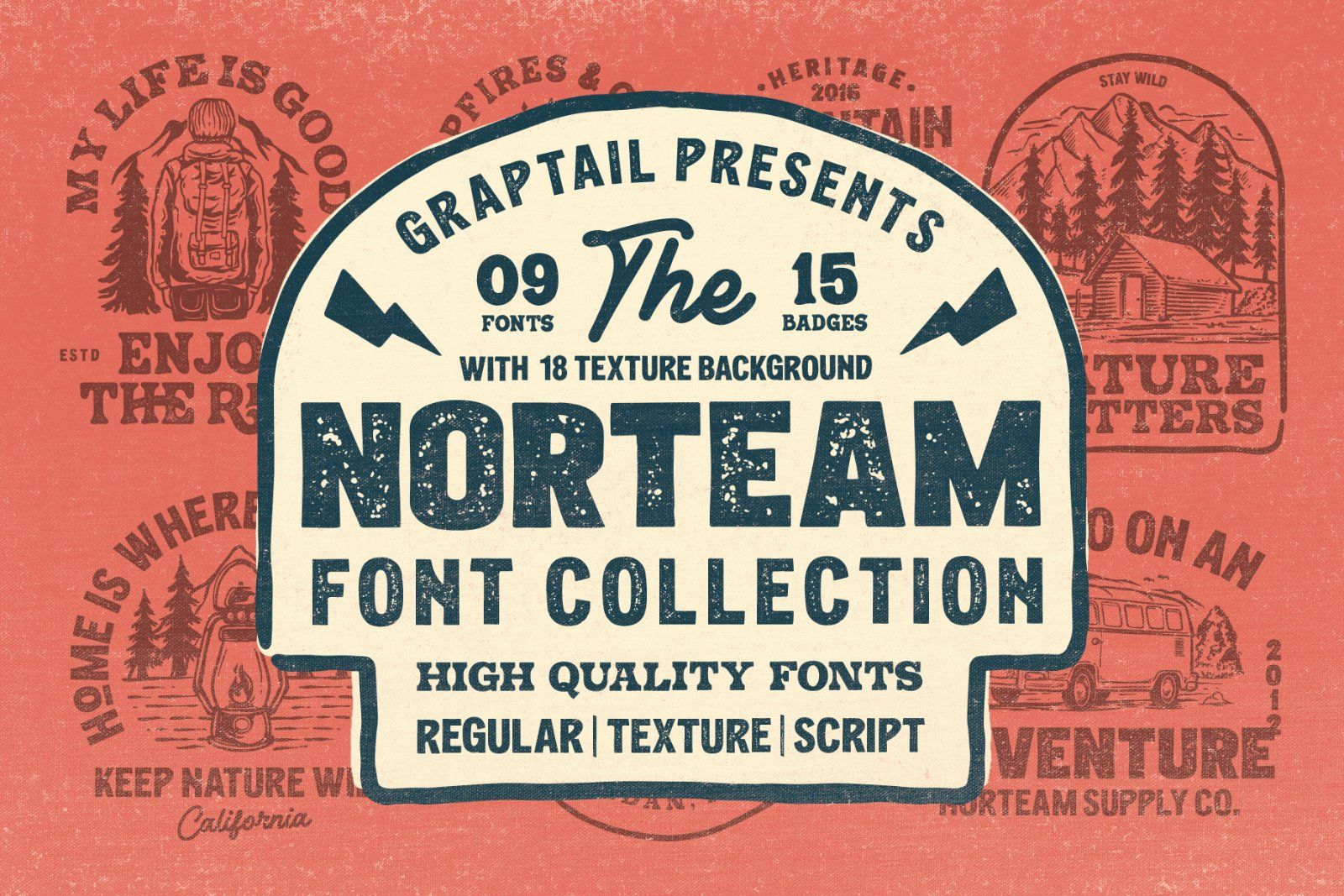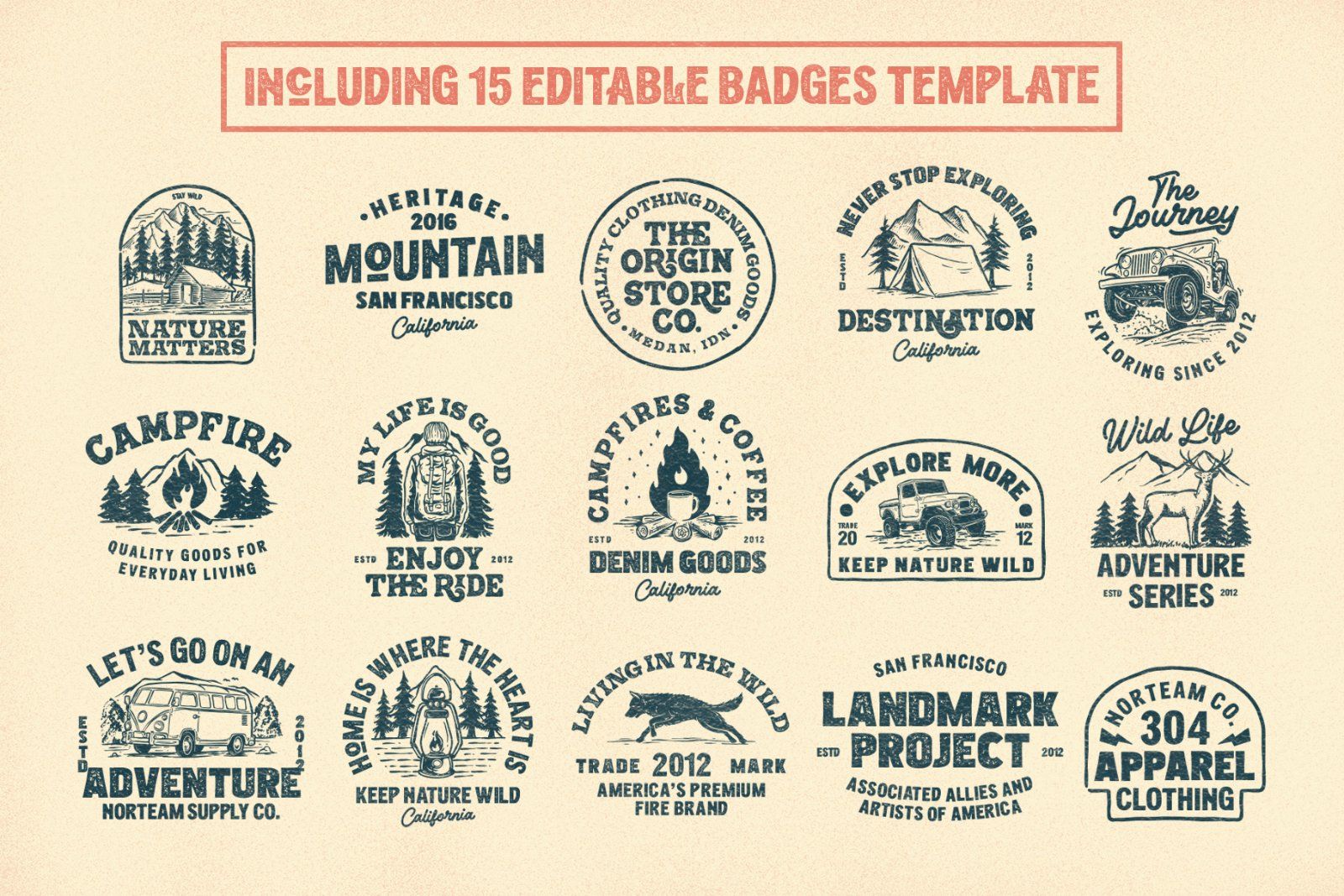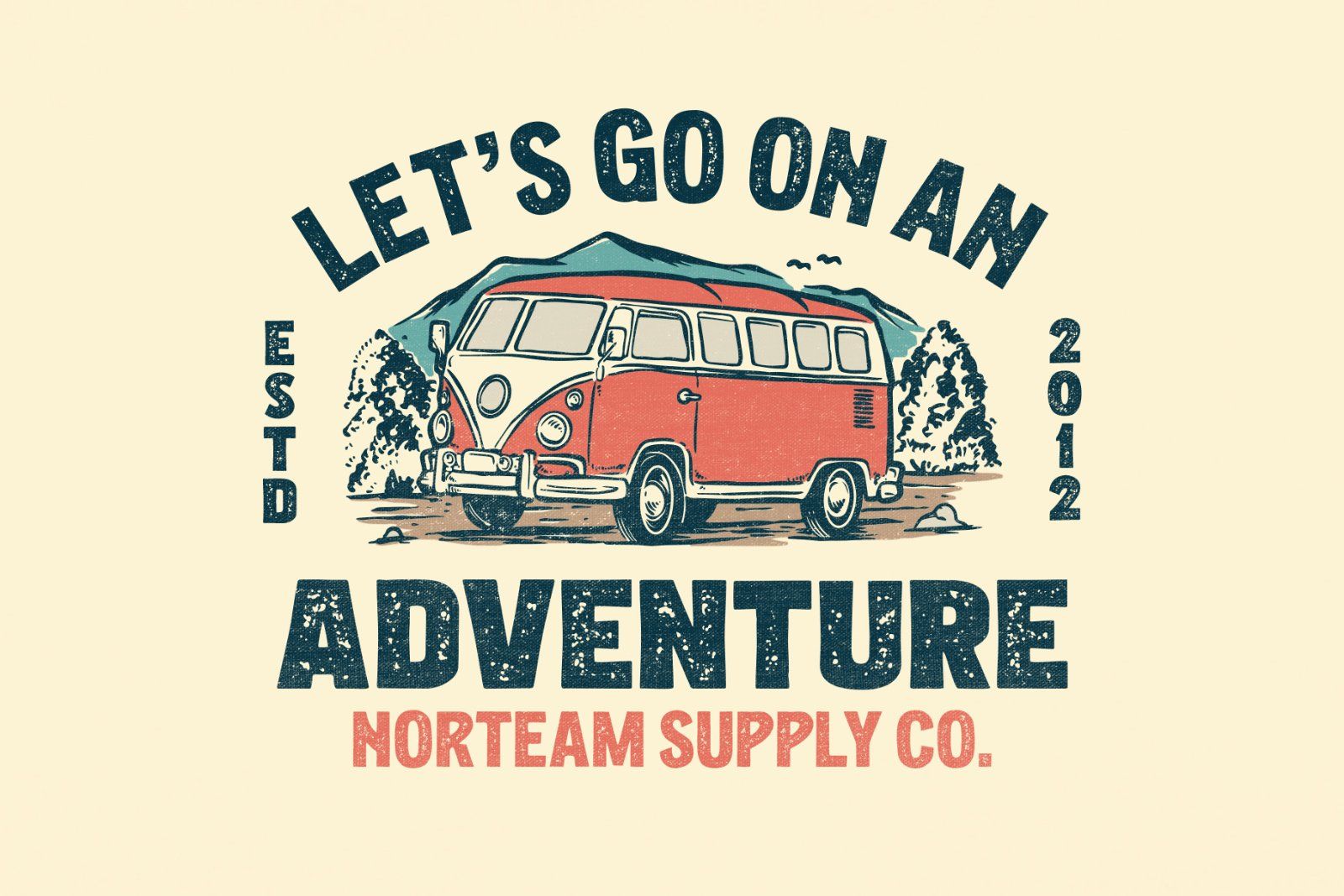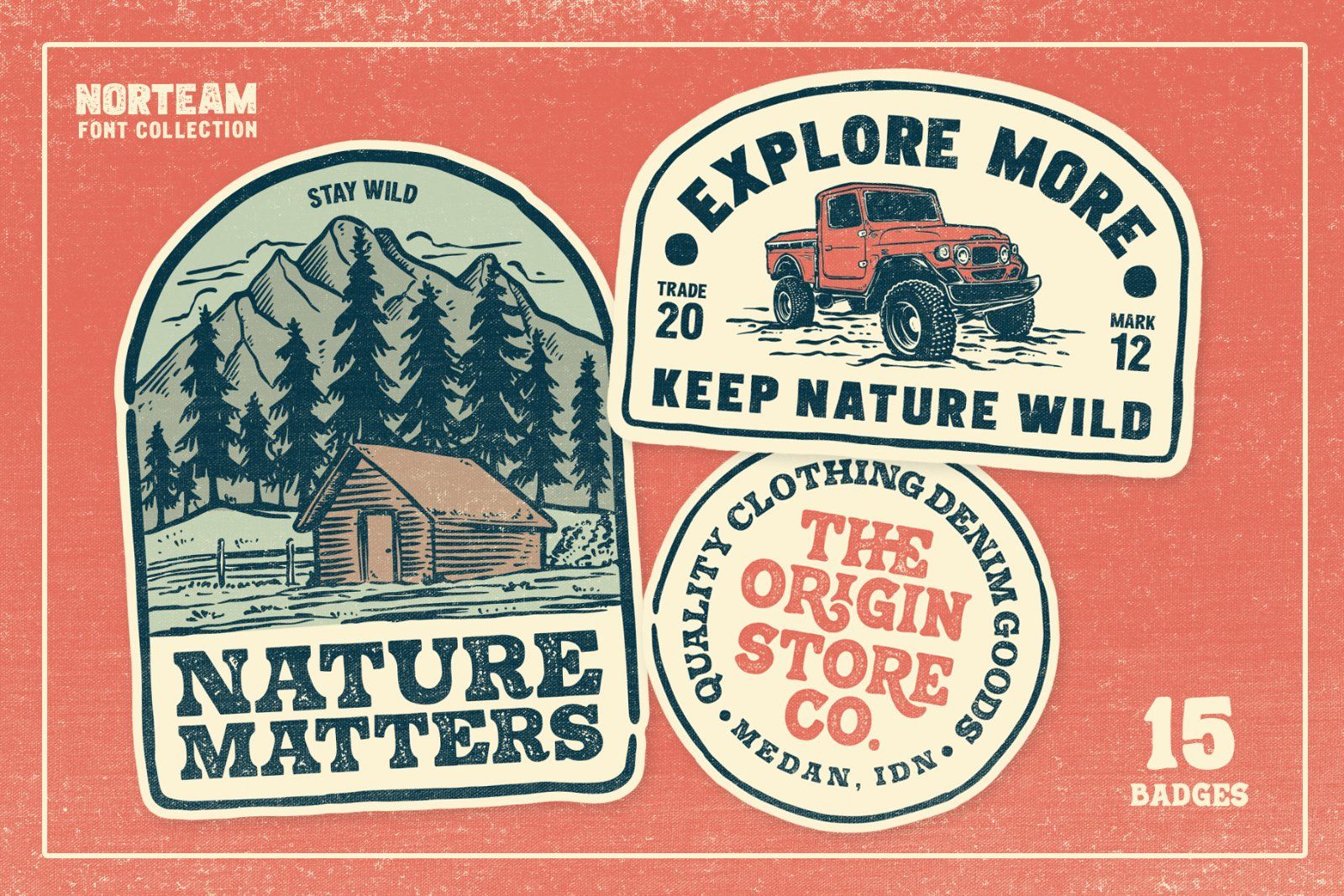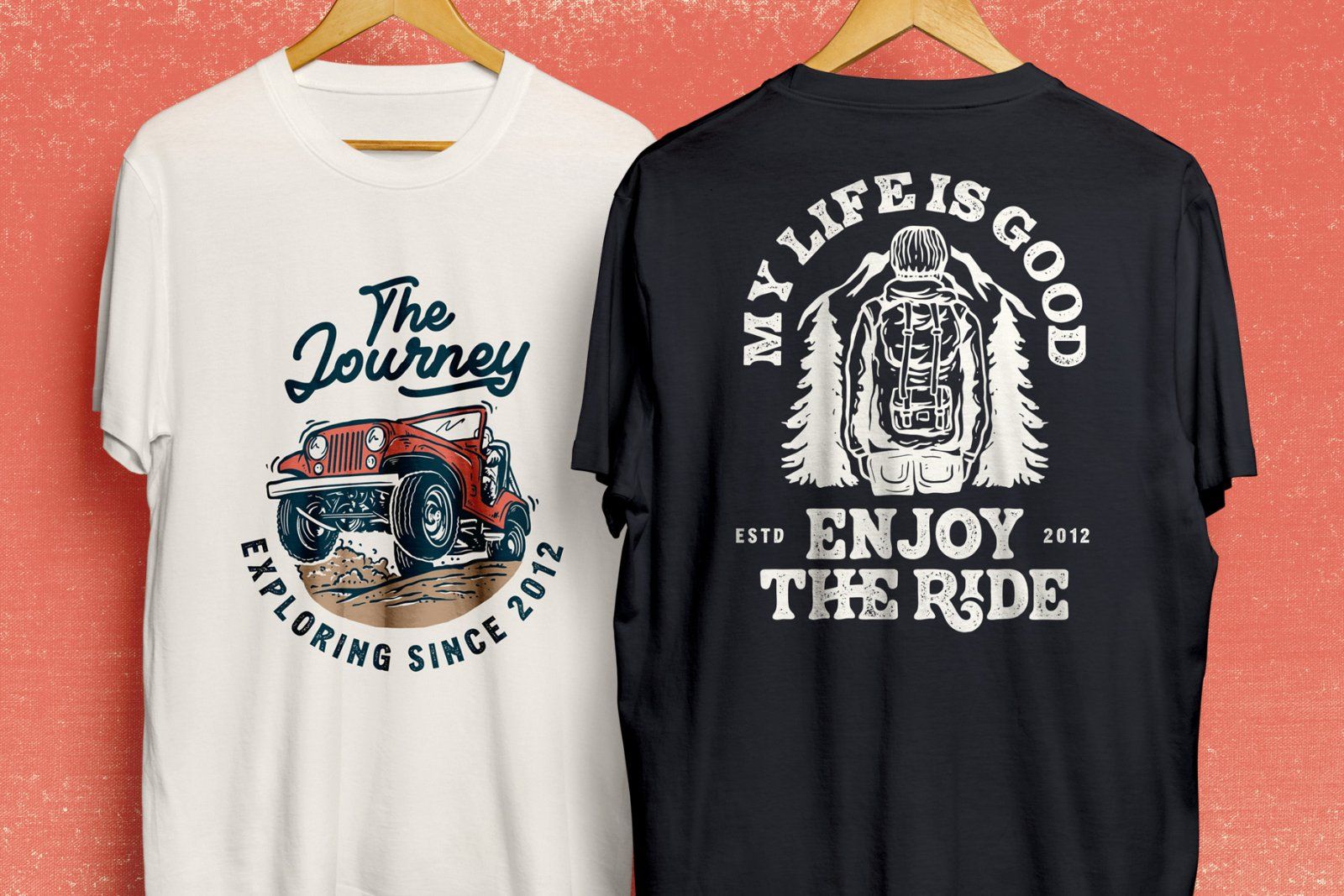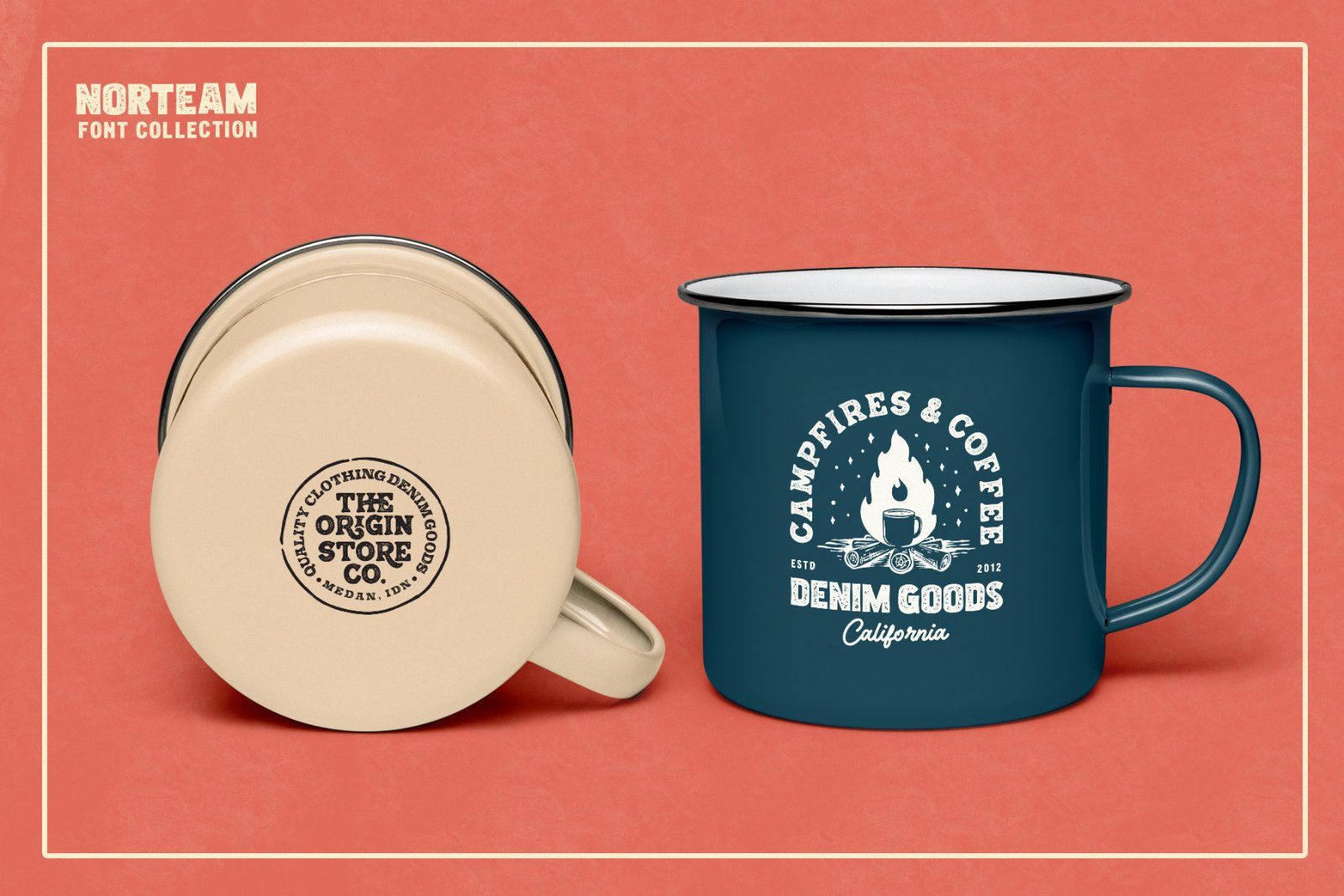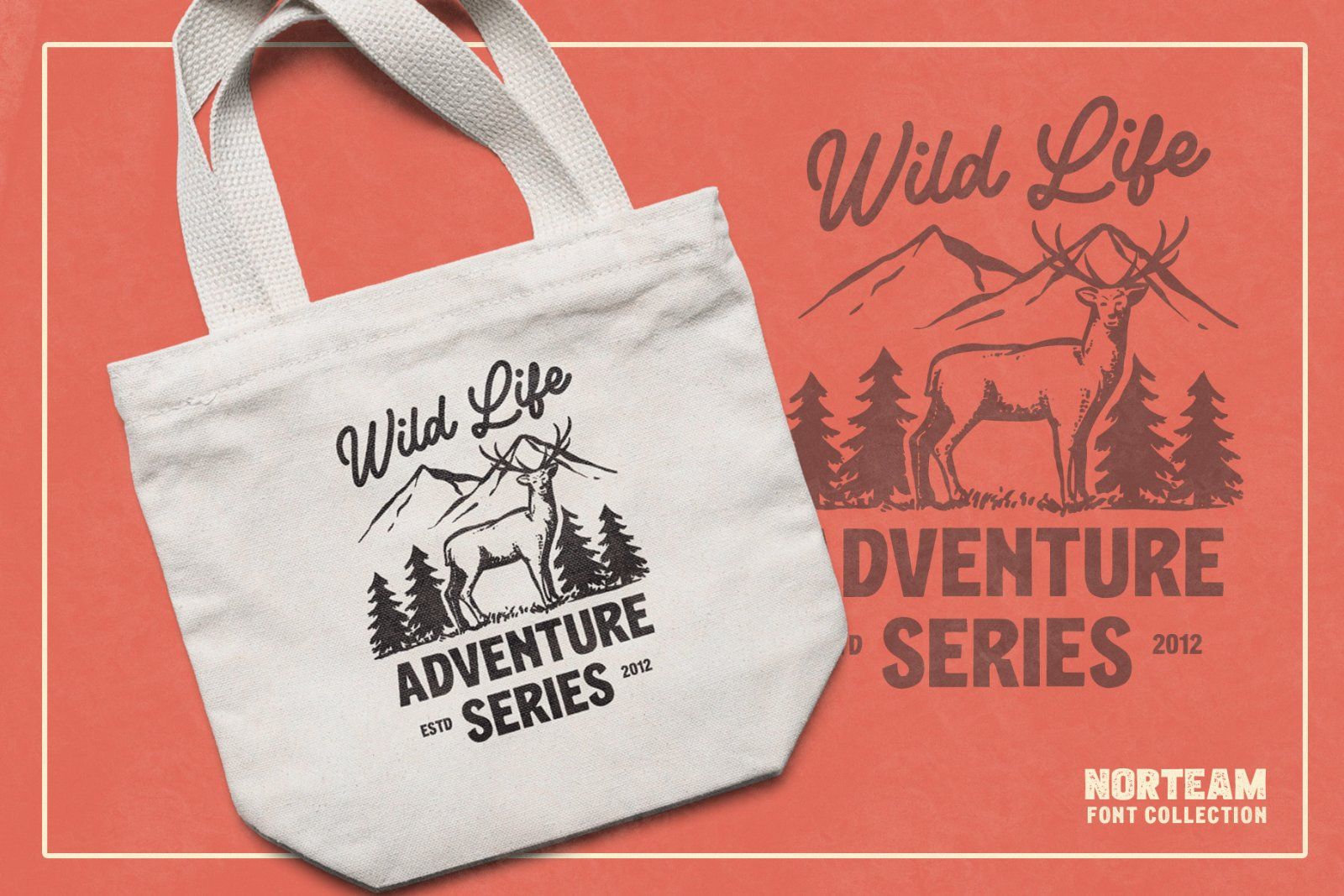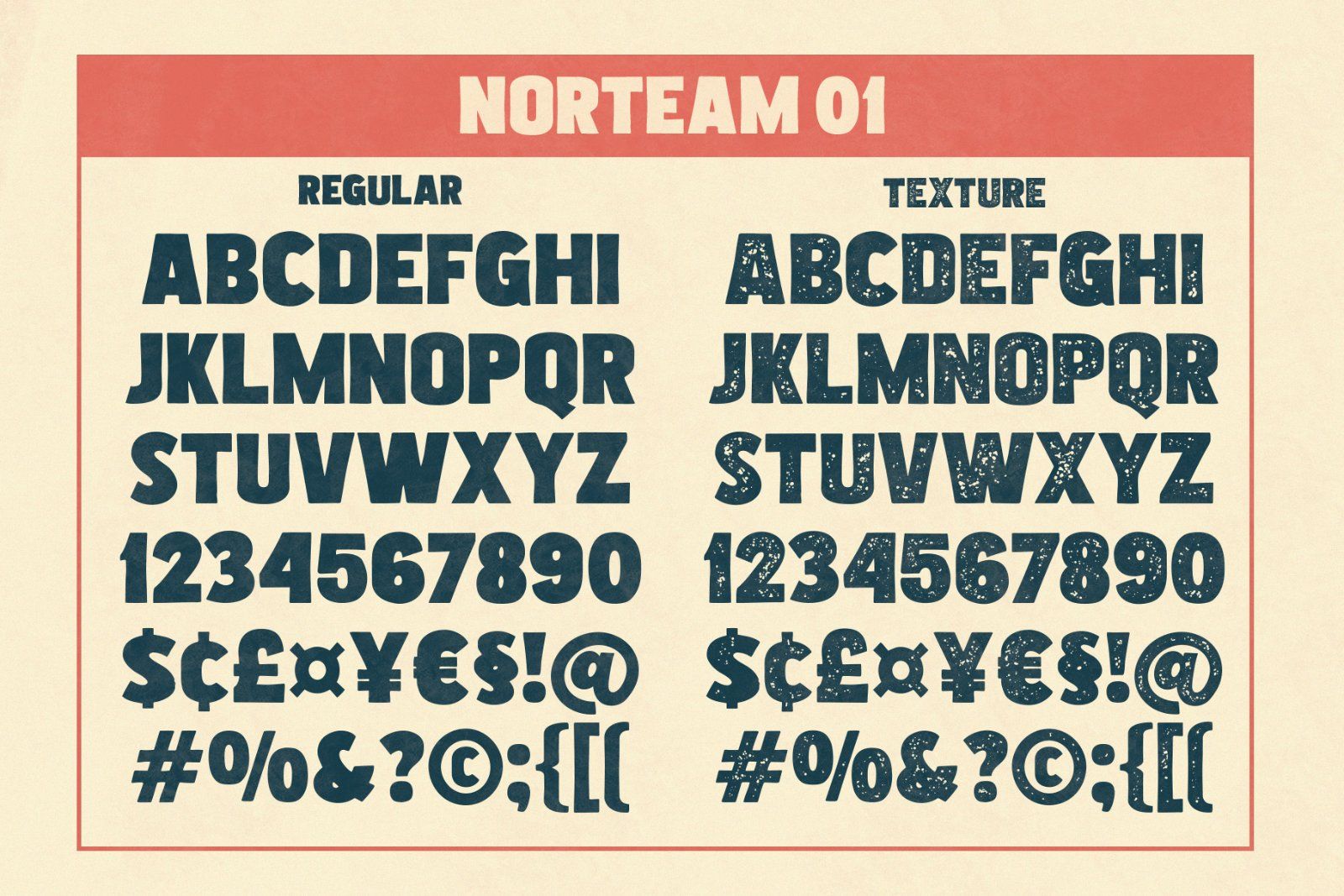
Introducing – Norteam Handcrafted Font Collection! All fonts, vectors and badges templates including 9 font styles! Textured, Clean & Script, enjoy! :)
Norteam Fonts collection contains a set of 4 textured fonts and 5 clean fonts with an authentic hand crafted look. The fonts are inspired by vintage shirt designs and they work perfectly for logos, packaging or title designs with a handcrafted vibe. Furthermore this product contains a set of 15 editable Badges templates for Adobe Illustrator (CS & CC) and more than hand drawn vectors!! It makes logo & badge design easier than ever! To complete the product, I've also included 18 textured backgrounds to showcase your designs in the right mood.